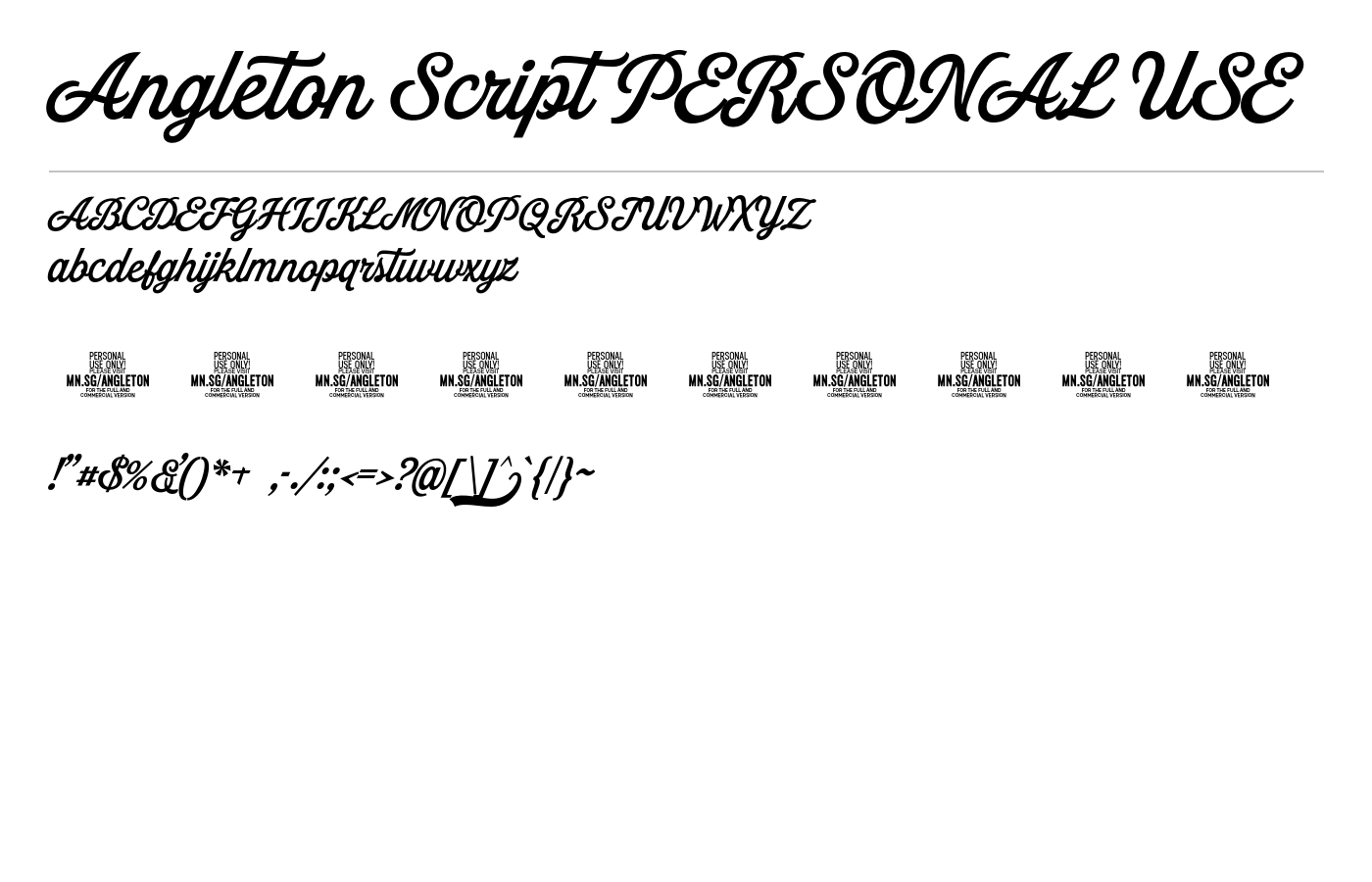
Angleton Script is a graceful and elegant cursive font that exudes a vintage charm with its fluid, connected letterforms and moderate contrast in stroke weight. Its smooth, flowing style makes it perfect for adding a personal, sophisticated touch to invitations, branding, and decorative headlines where a classic, refined feel is desired. This font works beautifully for projects aiming to convey warmth, elegance, and a timeless aesthetic.
Angleton Script PERSONAL USE Font
About Angleton Script PERSONAL USE Font